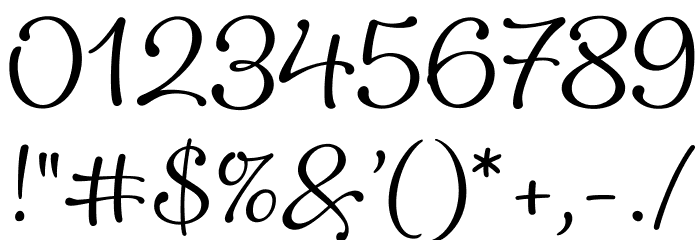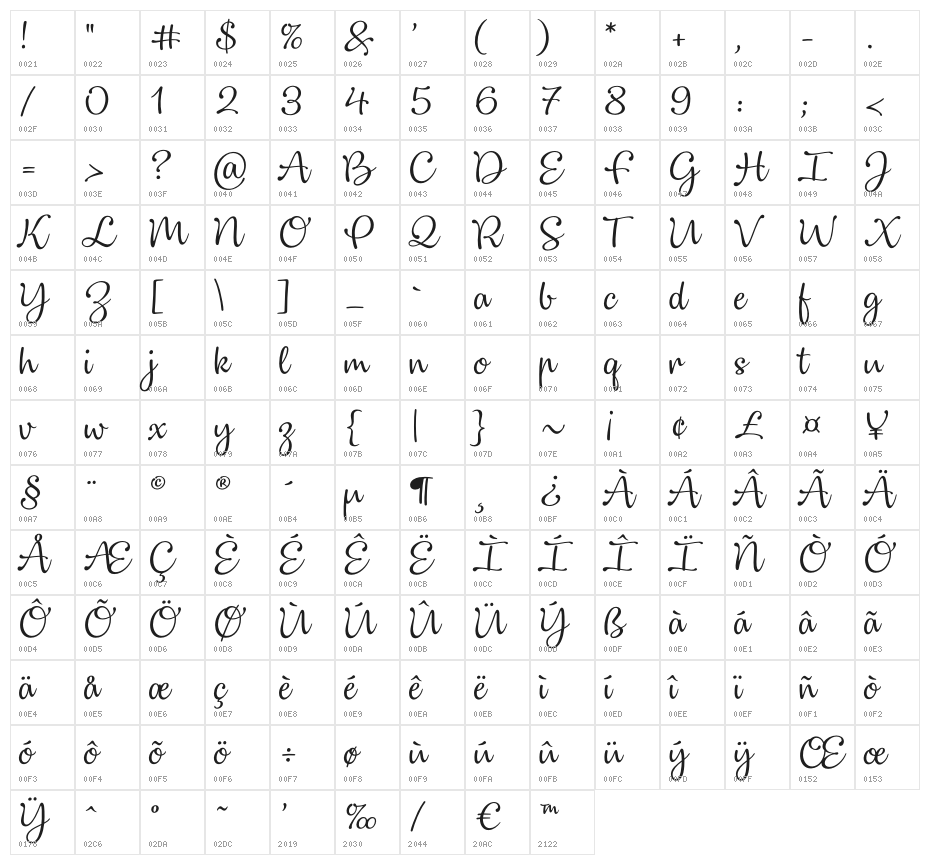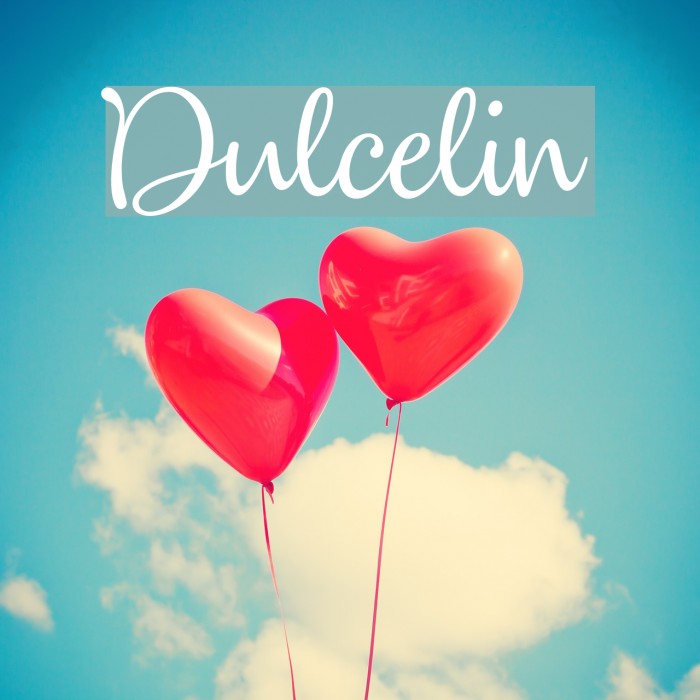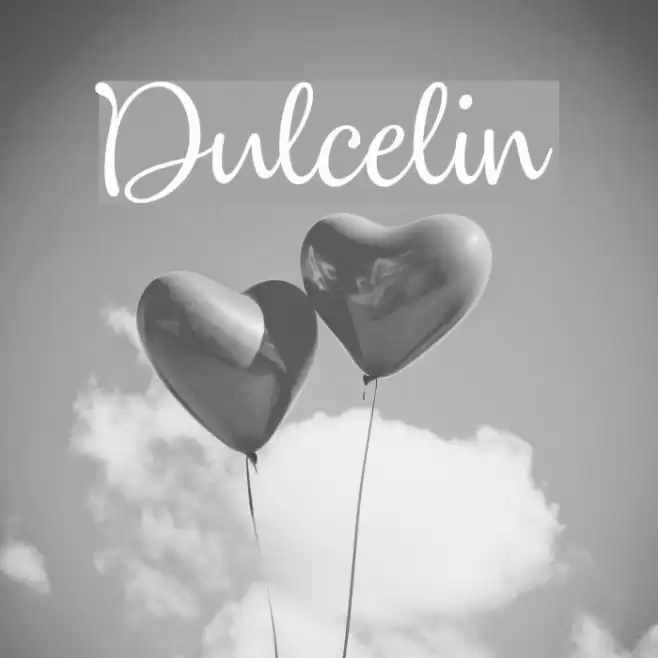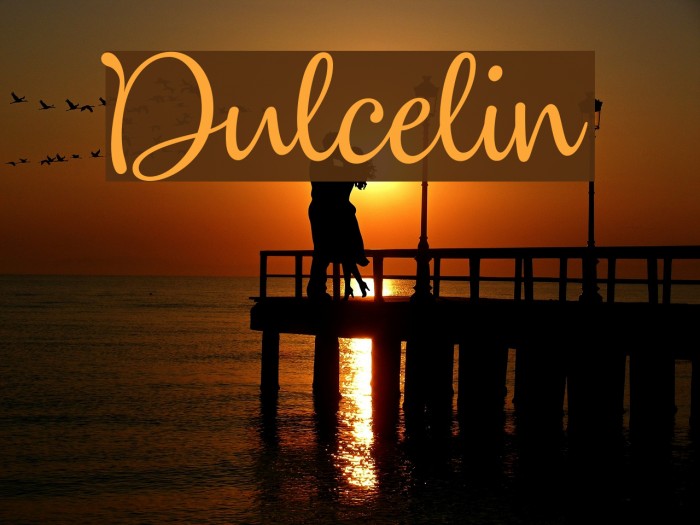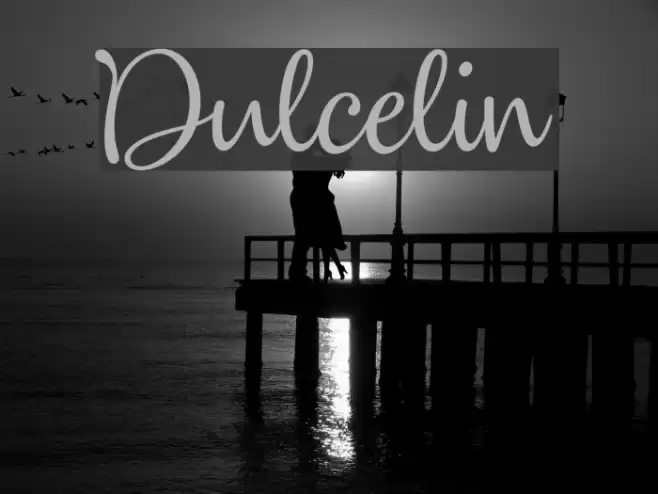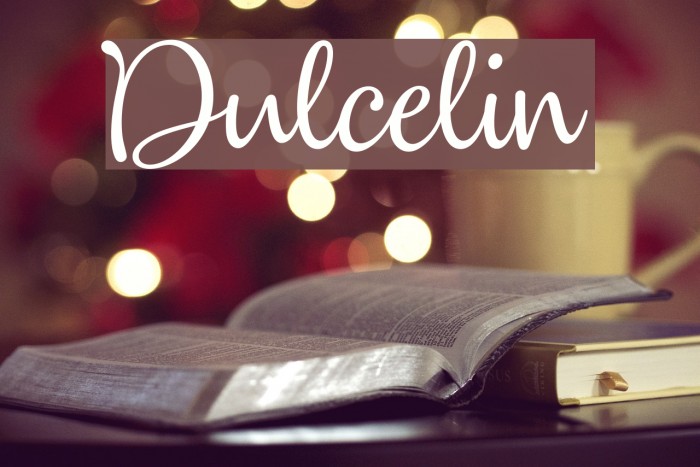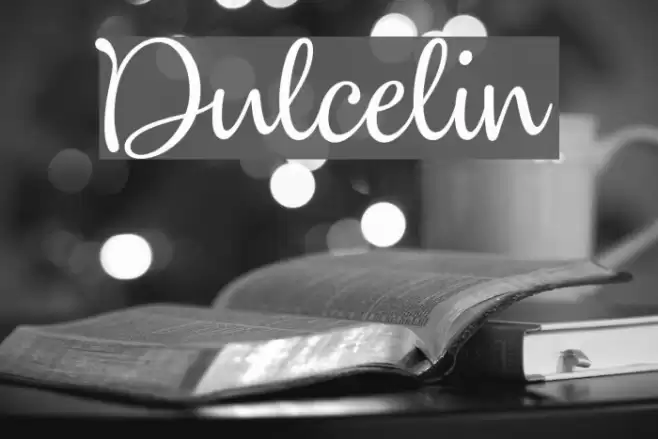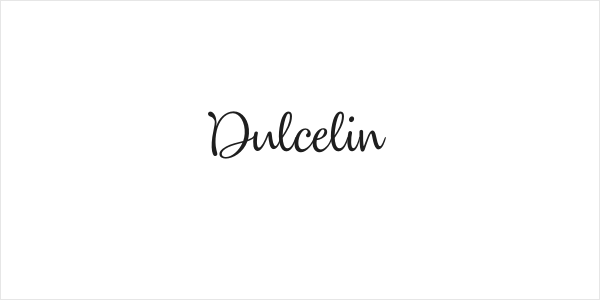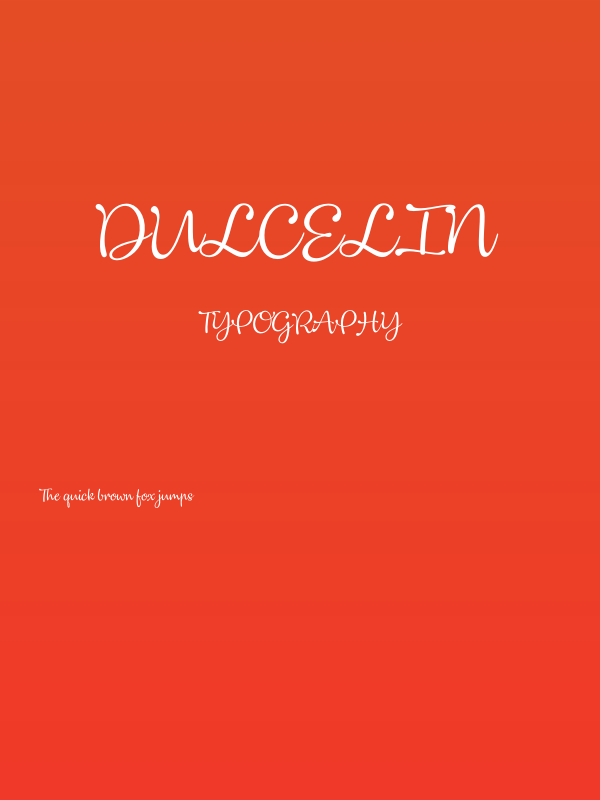
Dulcelin Font
Dulcelin Description
This font features a playful and elegant script style, characterized by its smooth, flowing lines and connected letters. The uppercase letters are slightly more ornate, with subtle flourishes that add a touch of sophistication. The lowercase letters maintain a consistent rhythm, enhancing readability while preserving the font's decorative nature. Numbers and special characters are crafted with the same attention to detail, ensuring a cohesive look across all text elements. The overall design is versatile, suitable for both formal and casual applications, making it an excellent choice for invitations, branding, and creative projects.
Use CaseLogos, Invitations, Creative projects
Proposed ProjectsIdeal for wedding invitations, branding, greeting cards, and creative design projects.